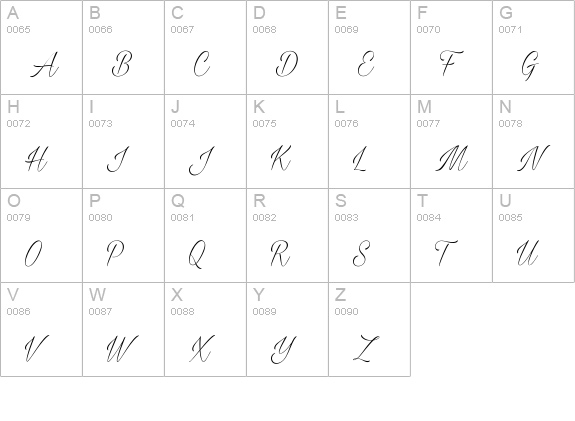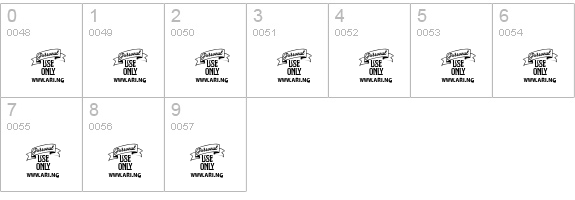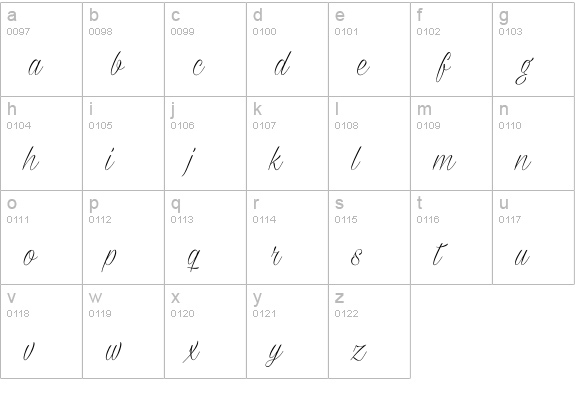
Milasian Thin PERSONAL Font Details
Milasian Thin PERSONAL is a delicate, low-contrast variant in the Milasian typeface family \xE2\x80\x94 well suited to fashion editorial, minimal branding, and high-contrast display.
Introducing Milasian Thin PERSONAL, a captivating and elegant font that exudes sophistication and refinement. This exquisite typeface is perfect for adding a touch of class to any project, whether it be a logo design, branding materials, or even personal stationery. Milasian Thin PERSONAL boasts delicate and graceful letterforms that effortlessly flow together, creating a harmonious and visually appealing aesthetic. Its thin strokes and clean lines give it a modern and contemporary feel, making it ideal for those seeking a sleek and polished look. But what sets Milasian Thin PERSONAL apart is not just its stunning design, but also its accessibility. This font is available to download for free exclusively at FontsMarket.com. Yes, you read that right. It's completely free! Now you can enjoy the beauty of this remarkable font without any cost. With its extensive character set, Milasian Thin PERSONAL offers versatility and flexibility, allowing you to explore endless creative possibilities. Whether you want to craft elegant headlines, create eye-catching advertisements, or design captivating social media graphics, this font will effortlessly elevate your designs to the next level. So why wait? Don't miss out on the opportunity to enhance your projects with the timeless beauty of Milasian Thin PERSONAL. Download it for free at FontsMarket.com and let your creativity soar. Unleash the power of this stunning font and make a lasting impression with every stroke.